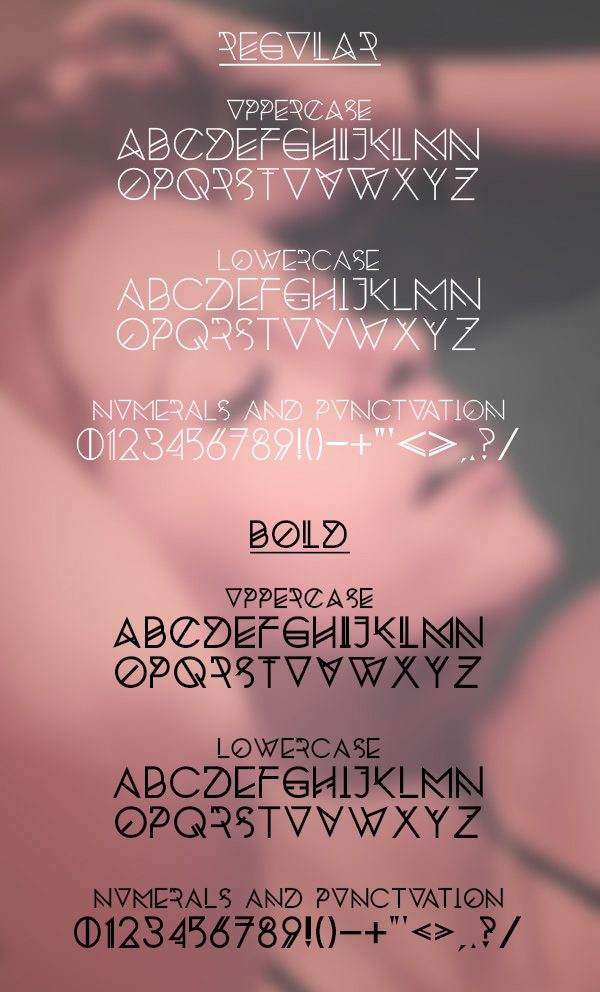
Fonts Free Font Of The Day #83 – Silent Lips Font by Yayang Apryana January 1, 2015 Silent Lips Font Font is an experimental free font imagined through a lot of different experiences. An experimental typeface imagined through a lot of different experiences. Designed by Vincent Labonne. Download